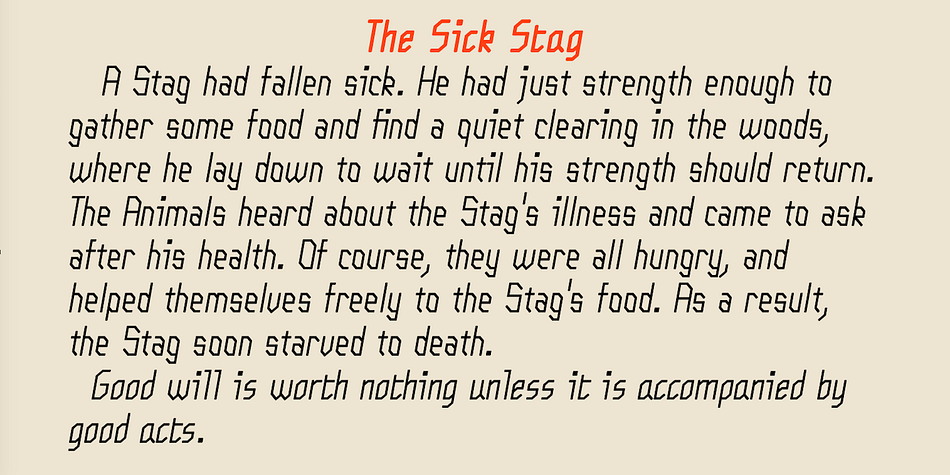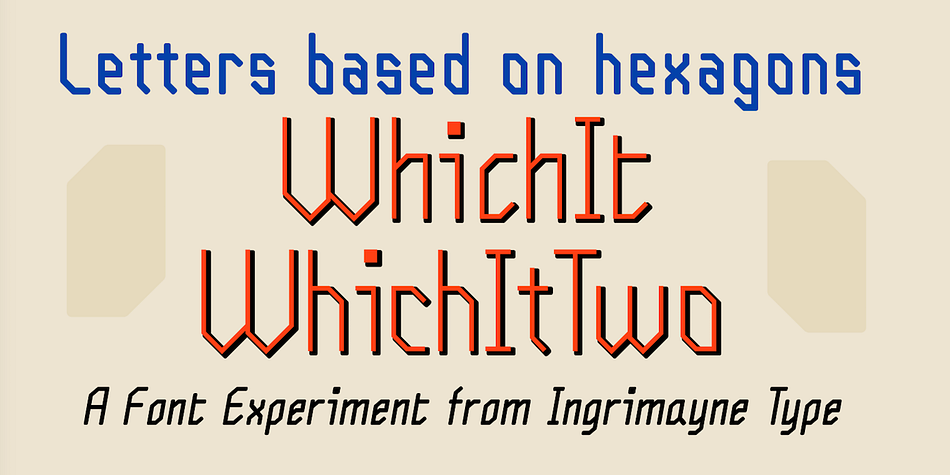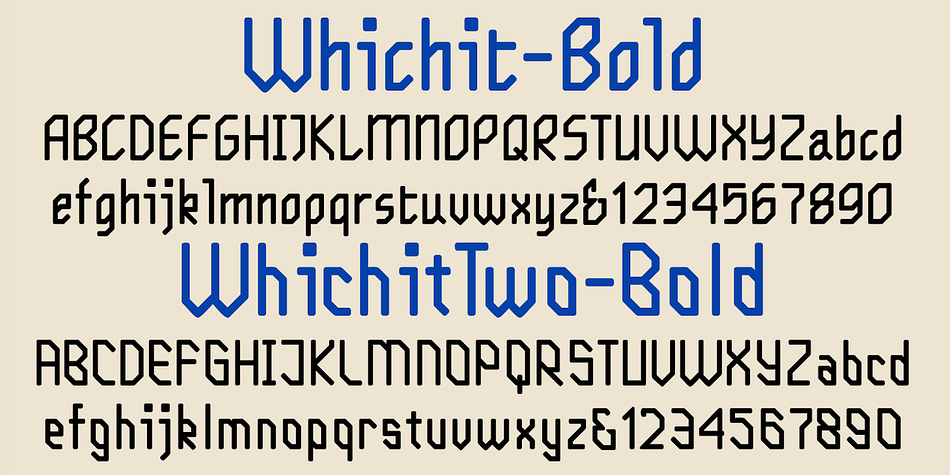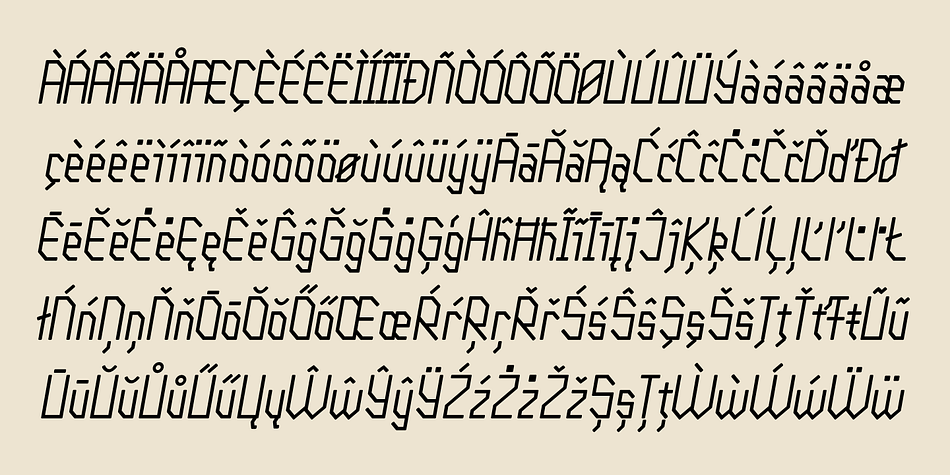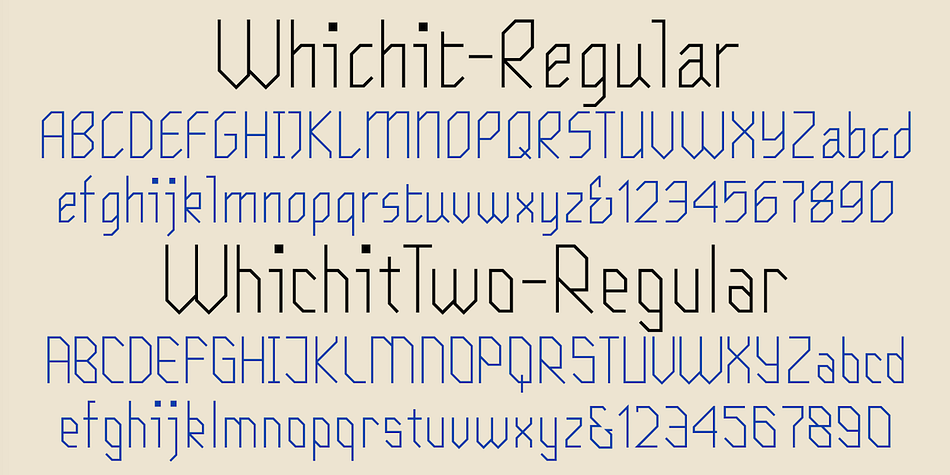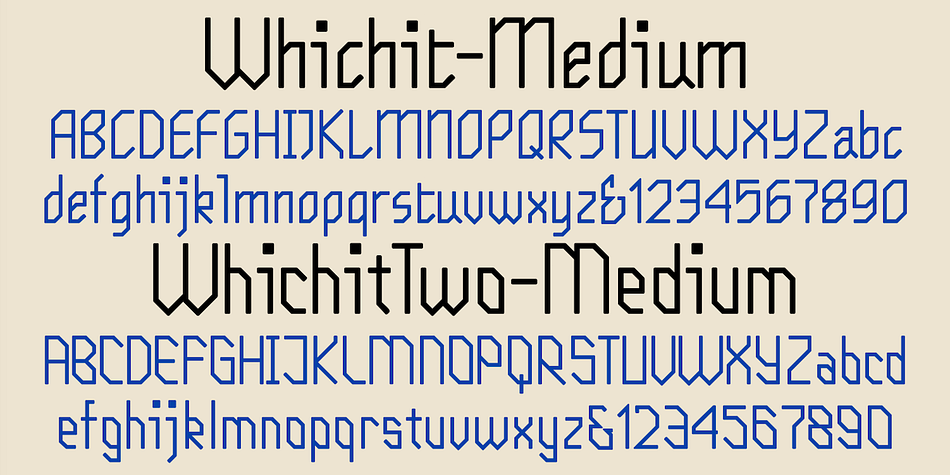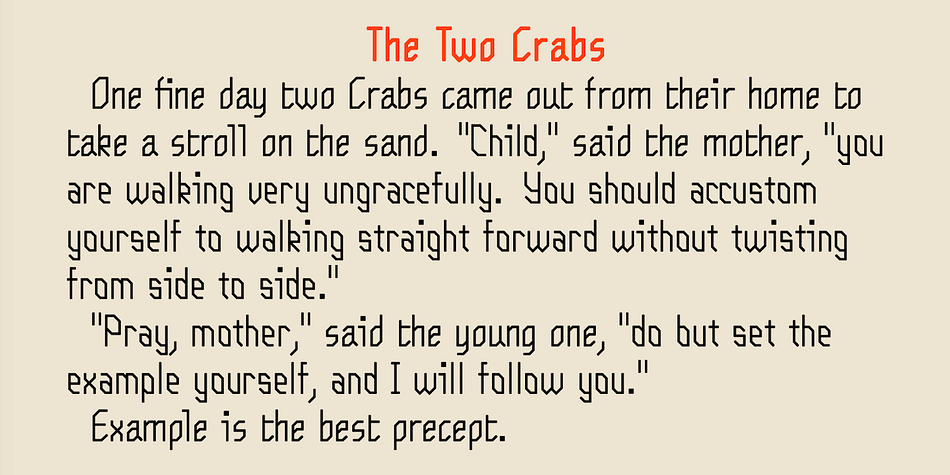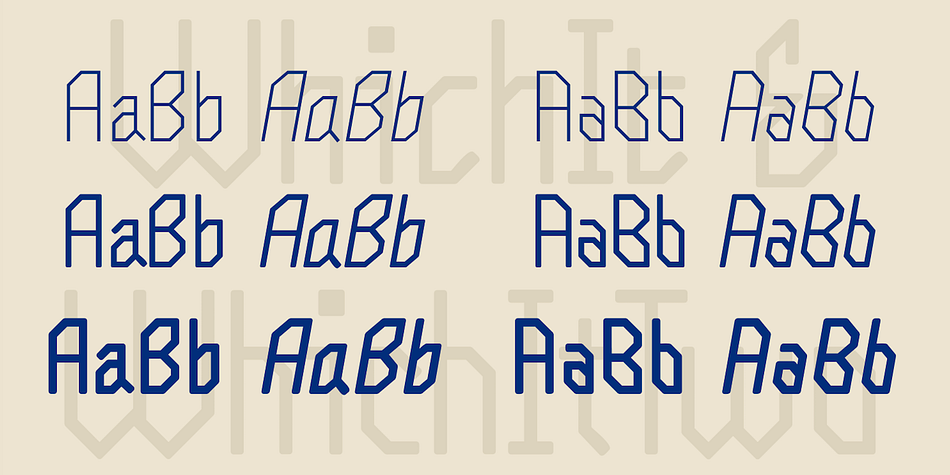
Designed by Robert Schenk, WhichIt is a display sans font family. This typeface has twelve styles and was published by Ingrimayne Type.
Whichit contains typefaces designed with a hexagonal motif. The opposite sides of the hexagon are parallel but two of them are longer than the other four. It does not have reflective symmetry so flipping it over a vertical line returns a different appearance. One of these appearances is the basis for WhichIt and the other for WhichItTwo. Each has three weights and each weight has an italic style. The result is a quirky sans-serif family of a dozen faces.